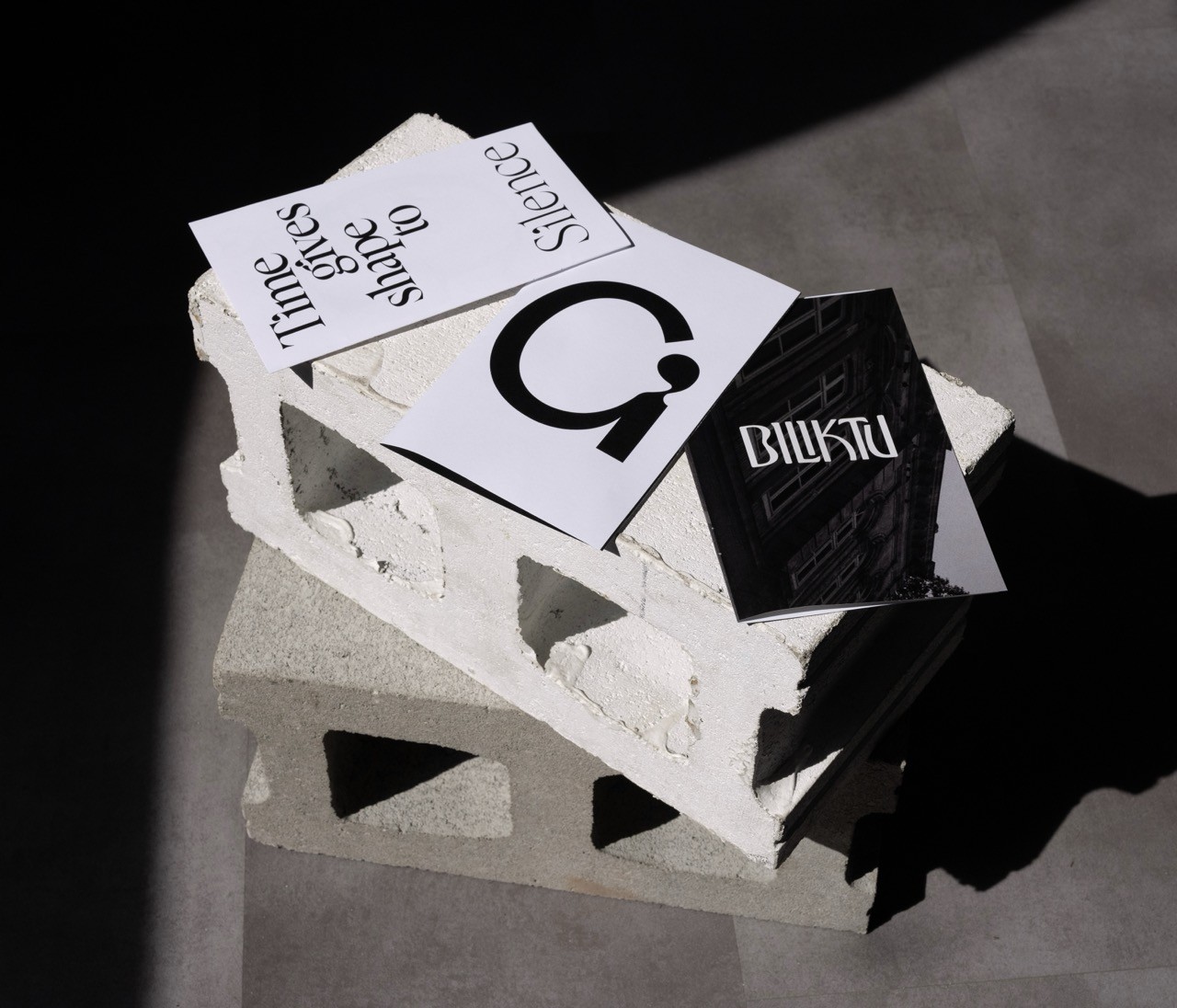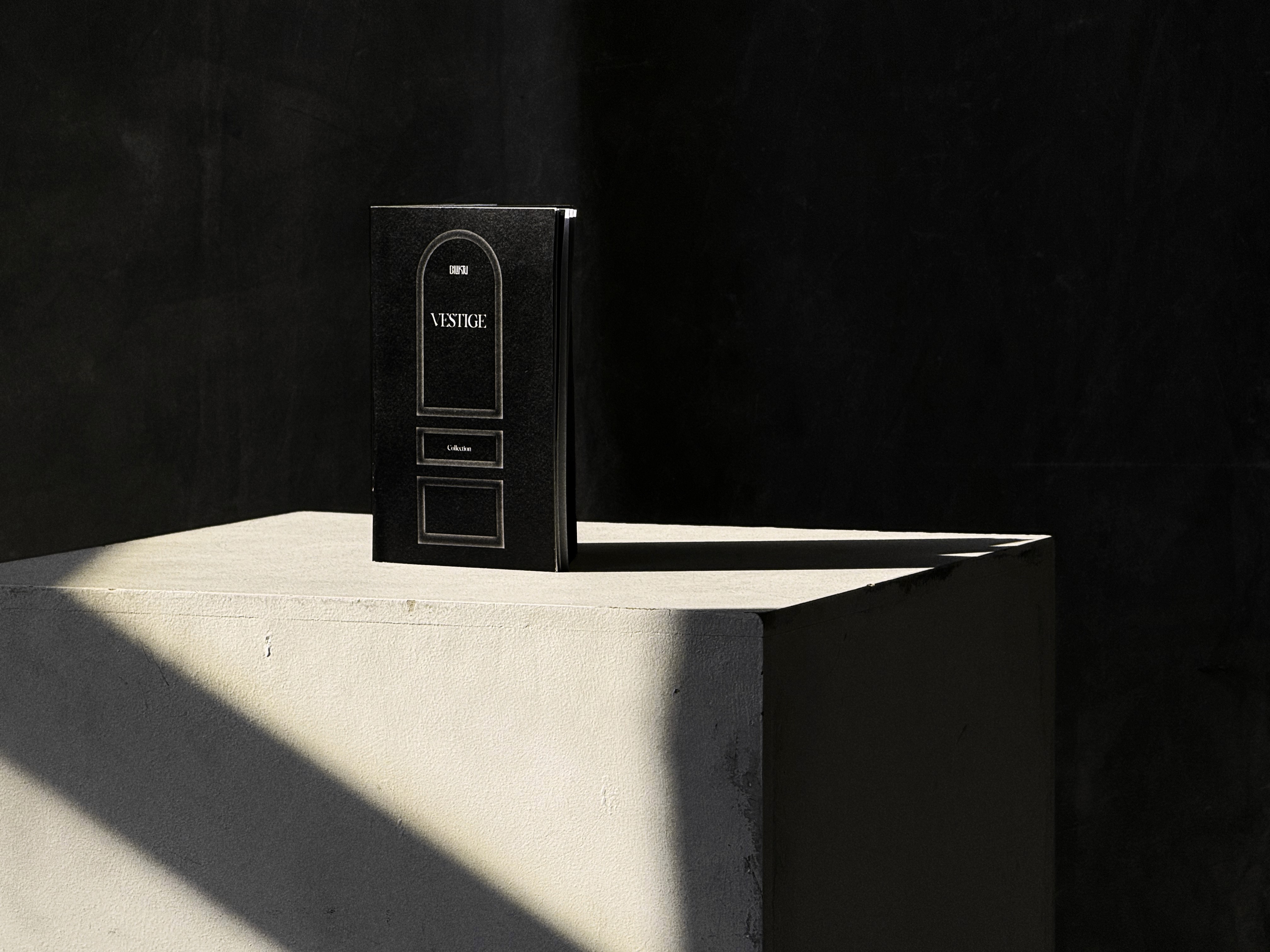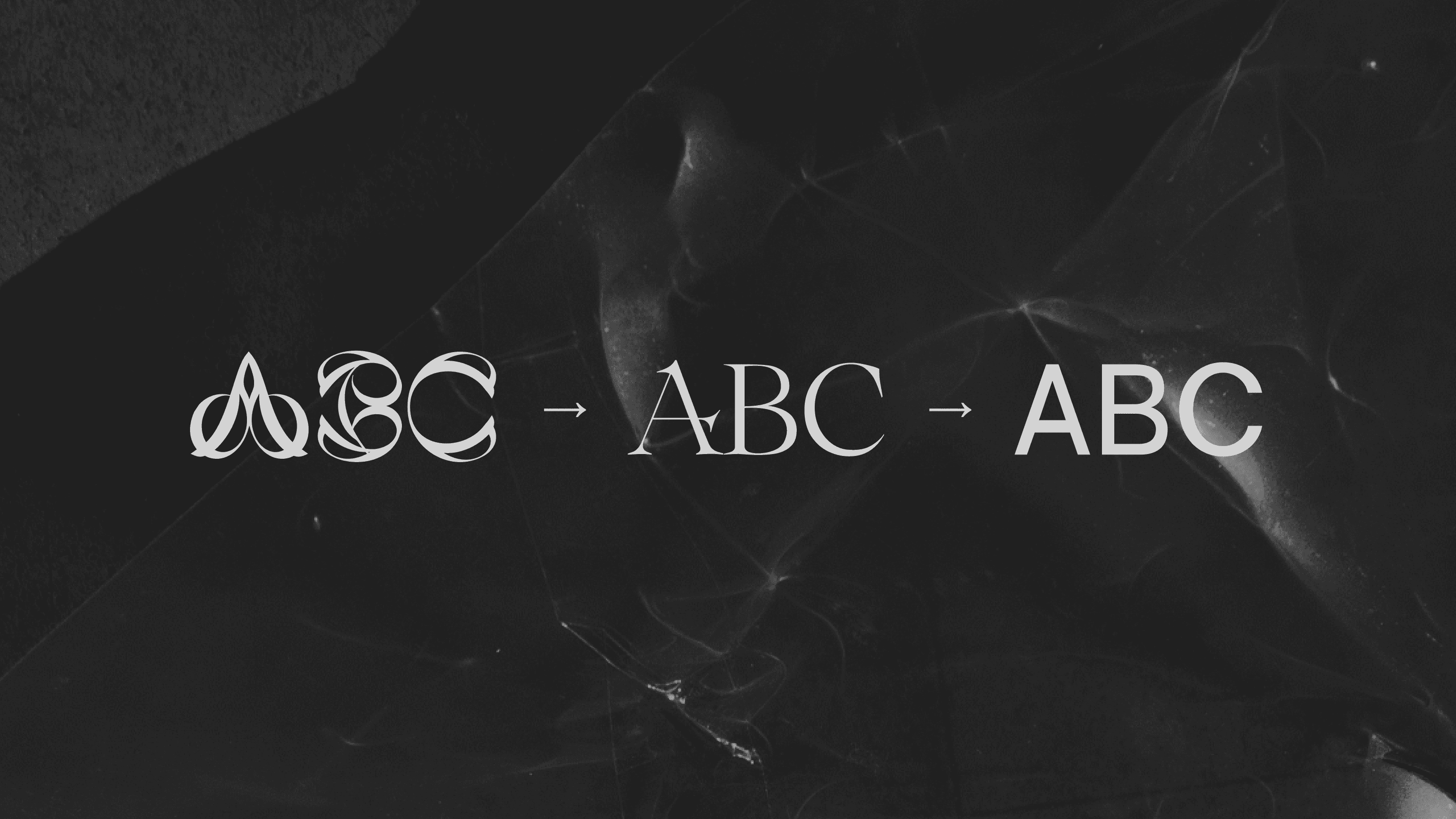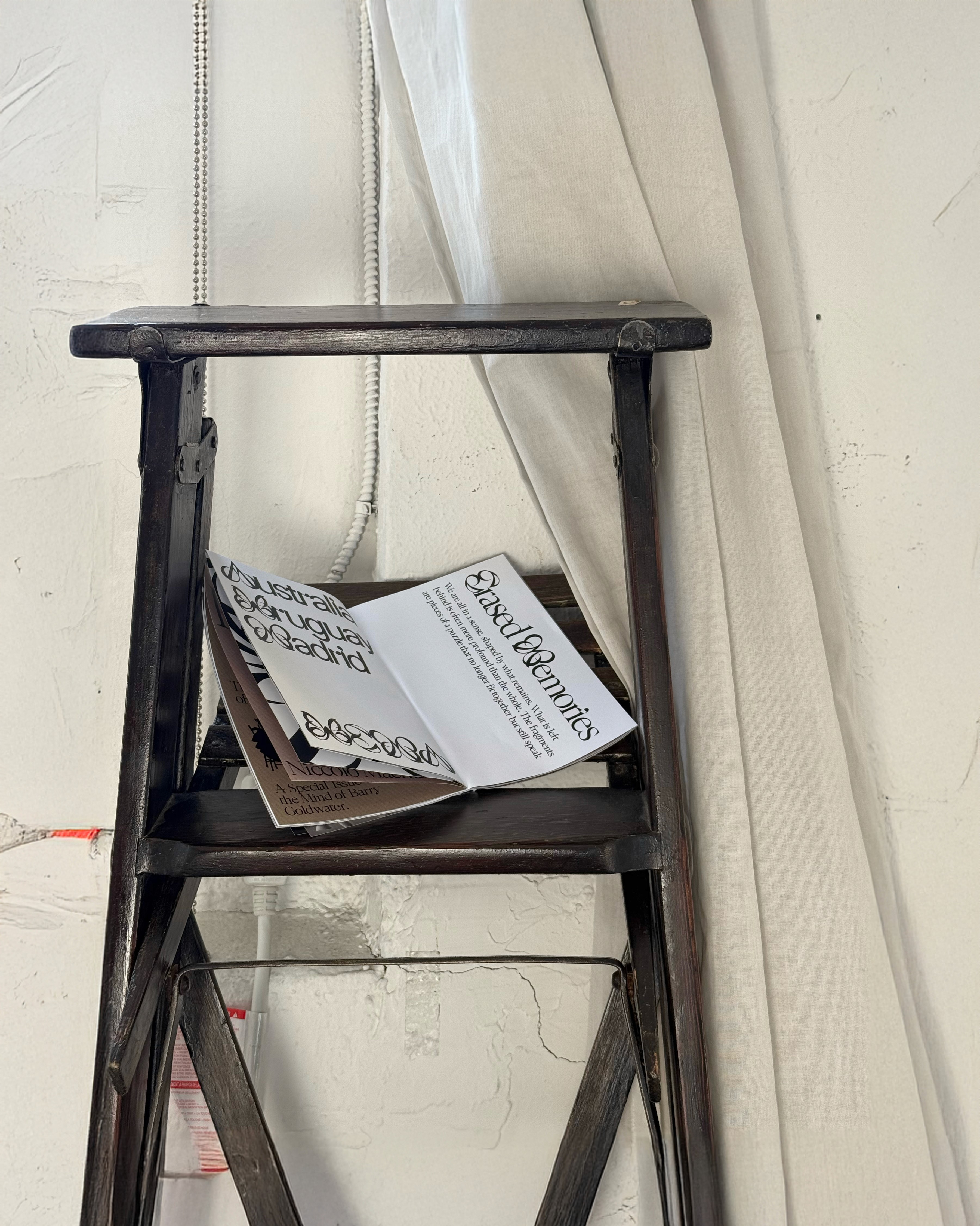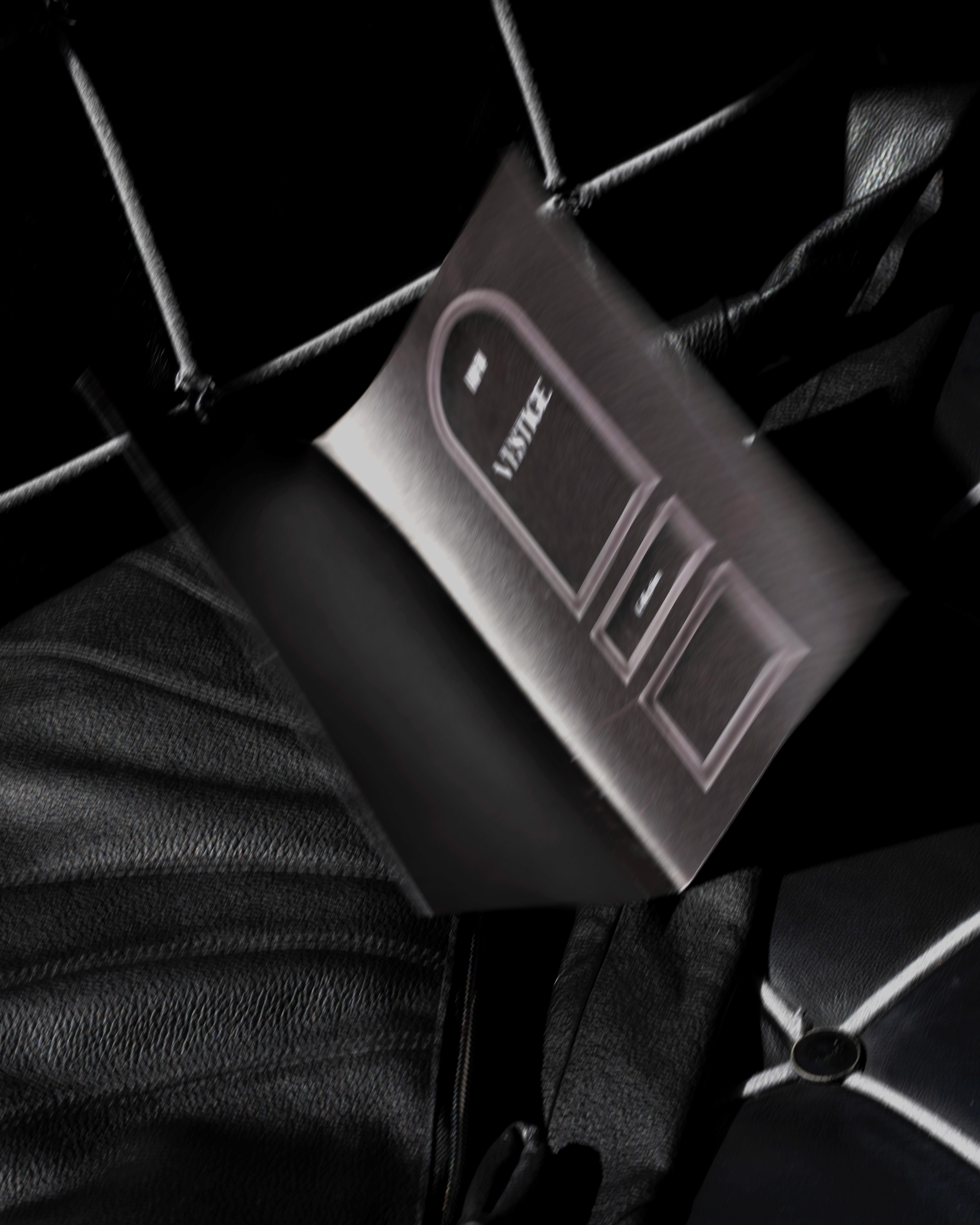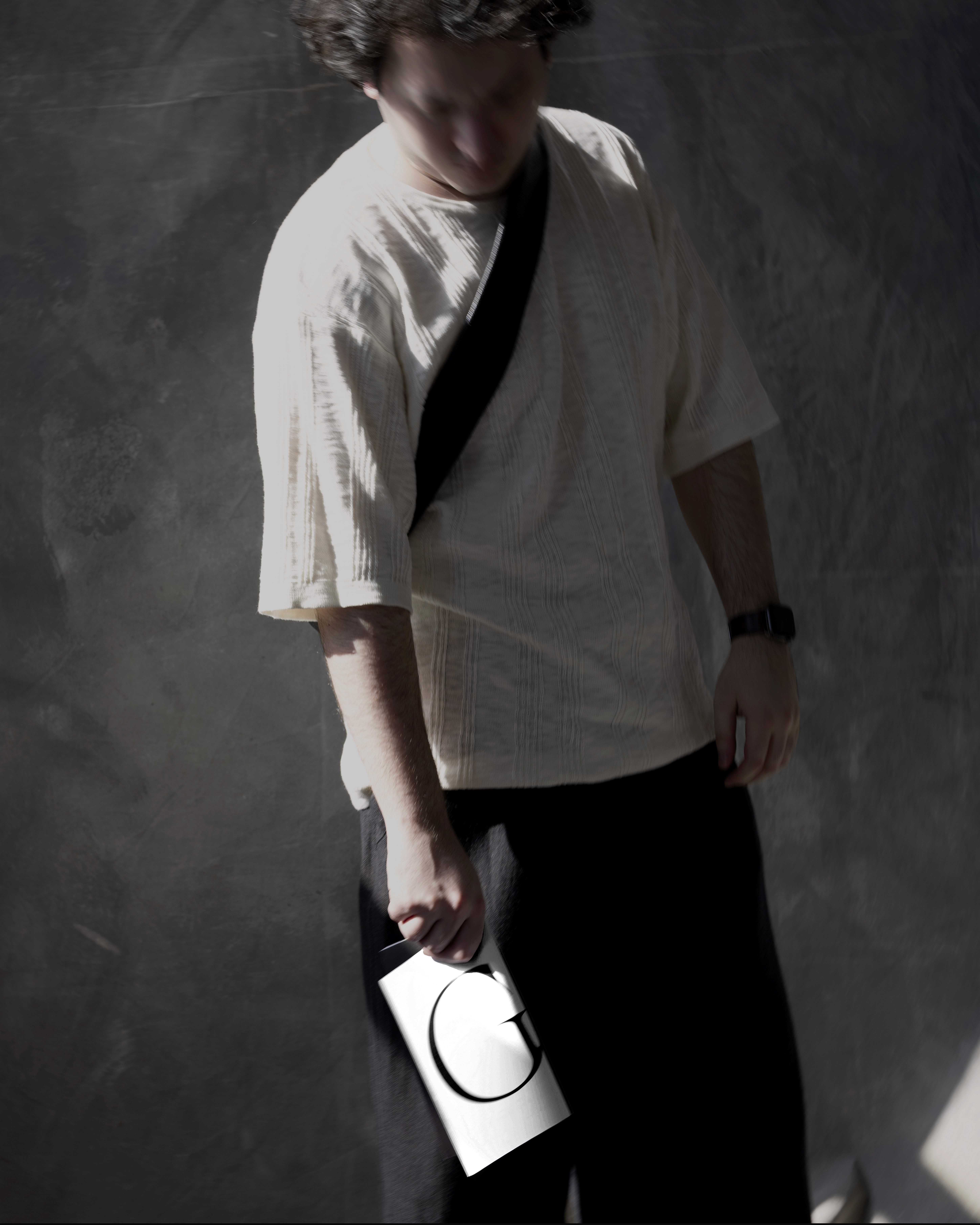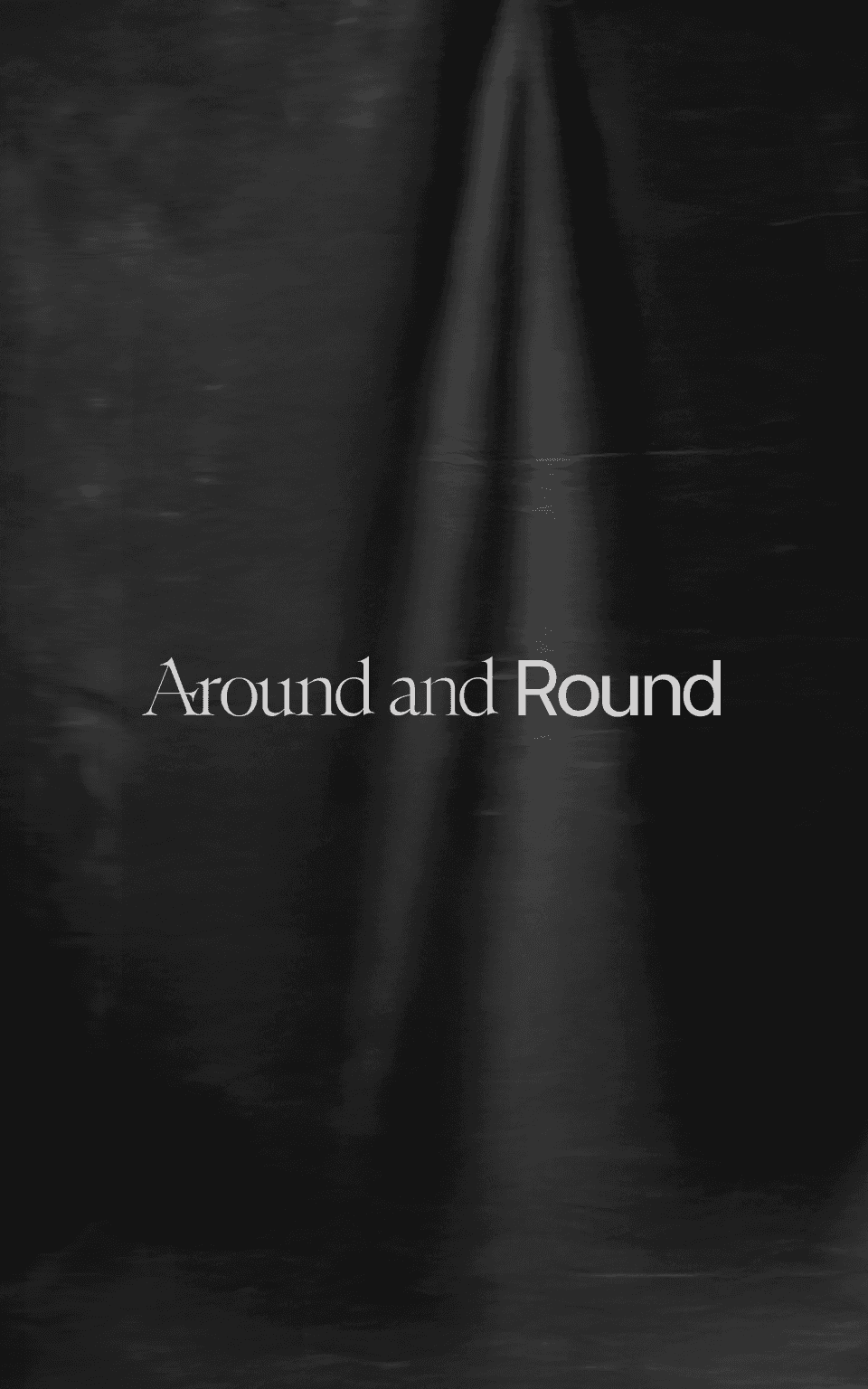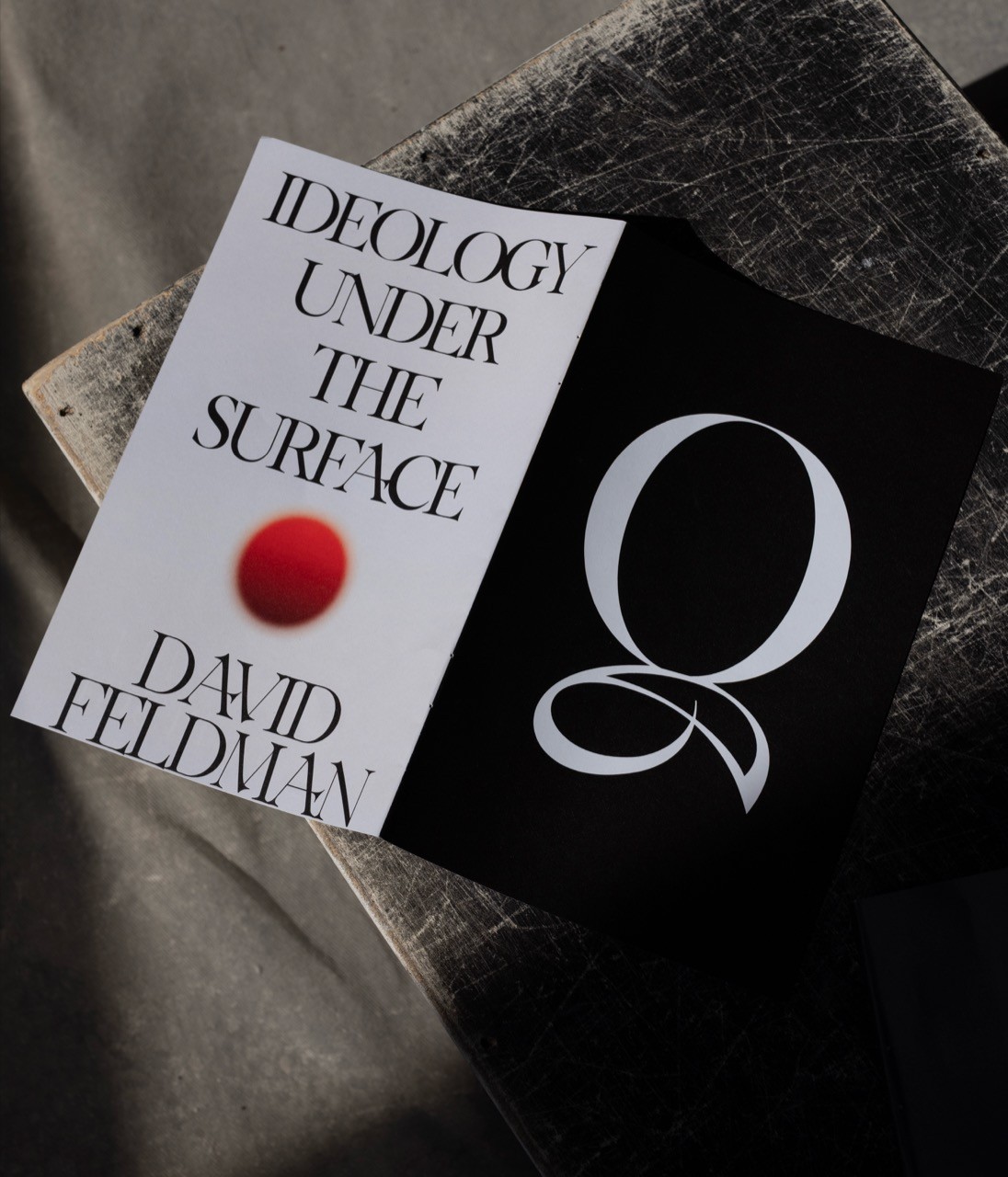
VESTIGE — INSCRIPTION
A trace of the past. A return to the core.
A paring down.
A sharpening.
A shift from excess to discipline, from impulse to control. Precise. Measured.
Vestige is an evolution of work, of self. A shedding. A distillation. What remains is essential: every line, every void, a decision. A structure shaped by clarity.
The collection holds three typefaces.
Lettrine was first; raw, ornamental, more gesture than system. Varak followed; tighter, heavier, held in control. Then Tavir; drawn to steady the rest. Quiet. Exact. Present.
In the quiet, absence speaks. Details are stripped back so meaning can surface. This is design at its edge, intentional, unyielding, reduced. A tribute to what remains. A commitment to what’s ahead. A language of form; brutal, essential, inevitable.
Typography is no longer dictated by the limitations of past tools. The rigid structures of metal type, the constraints of the printing press, and even the standardized expectations of digital design have all given way to an era where letterforms can exist in any form imaginable.
But this freedom is not an excuse for excess,it is an opportunity for intentional design that questions how type functions beyond its historical dependencies.
This approach does not treat typography as a passive system for delivering meaning, but as an active visual structure, one that operates between pattern and text, recognition and abstraction, function and disruption.
Legibility is not the primary objective; instead, typography becomes an environment that guides, misleads, fragments, and reconstructs perception.
Letters behave as both symbols and systems, forming compositions that invite the viewer not just to read, but to observe, navigate, and decipher.
YET This isn’t a rejection of classical typography.
It runs parallel to it.
This work isn’t neutral.
It invites response.
Legibility and utility define one axis of typography; structure, rhythm, and perception define another.
Rather than existing in opposition to traditional type design, this approach extends its possibilities, treating letters as patterns, pathways, and evolving forms that engage the eye before the mind.
Where standard typography fades into the background, this work holds attention, guiding and shaping how text is perceived over time.
RESPECT THE MESS
Typography does not have to be a passive carrier of language.
It can be an active visual system, where recognition is not immediate but gradual, layered, and interpretative.
It doesn’t wait to be read, it shapes how reading happens. Structure becomes rhythm. Form becomes thought.
Type can inform, but it can also engage, captivate, and provoke thought.
It is about expanding how reading happens.
This is an approach that coexists with tradition, not in defiance, but as a necessary extension of what typography can be. A parallel path, built on exploration.
WILLEM, BUT SERIFED
Tavir and Varak used together as a Layout Design
Unique Identifiers for Typefaces of Vestige Collection
VARAK ALL GLYPHS
TAVIR ALL GLYPHS
LETTRINE ALL GLYPHS